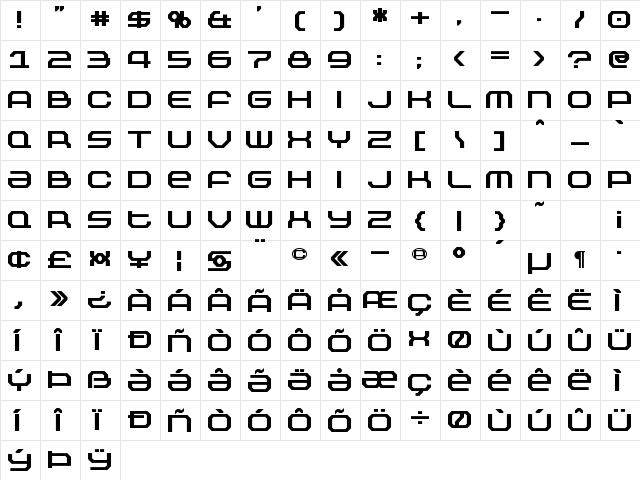
Outland Bold
| Foundry | Pixel Sagas |
| Designer | Neale Davidson |
Design Context for Outland Typeface
Outland takes a measured approach to typography — its balanced proportions and neutral character make it a reliable workhorse for both digital and print work. Its bold stroke weight gives it real presence on the page.